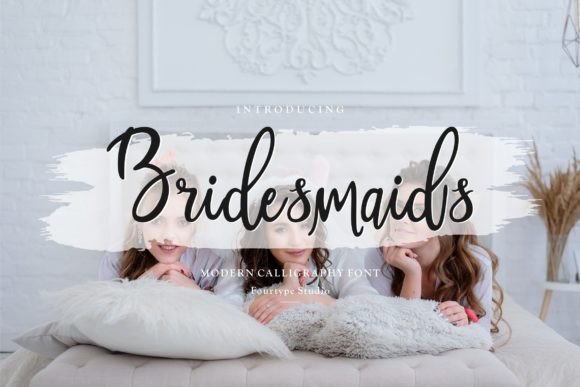
The Bridesmaids Font: A Timeless Beauty for Your Creative Projects
I’ll never forget the moment I stumbled upon the Bridesmaids font while working on a wedding invitation project for a client. I had been searching for the perfect handwritten font for hours, but nothing seemed quite right. That was until I saw Bridesmaids – an exquisite, elegant script that instantly captured my heart. In this article, I’ll share my experience with this beautiful font, its features, and how to make the most of it in your designs.
An Honest Review of Bridesmaids Font
• ✨ Exquisite Handwritten Style: Bridesmaids boasts a classy, calligraphic influence that feels both sophisticated and fresh.
• ✅ Contemporary yet Timeless: This font strikes the perfect balance between modern flair and classic elegance, making it versatile for various projects.
• 💫 Emotional Connection: The flowing script and delicate strokes evoke a sense of romance and whimsy, perfect for wedding-related designs or projects that require a personal touch.
While Bridesmaids is an exceptional font, there are a few things to keep in mind:
• ⚠️ Legibility at Small Sizes: Like many script fonts, Bridesmaids may lose legibility when used at very small sizes. It’s best used at larger sizes (from 20px and above) to showcase its beauty.
• 🤔 Pairing with Other Fonts: Due to its distinctive style, Bridesmaids can be a bit challenging to pair with other fonts. Stick to simple, clean fonts to create a harmonious contrast.
The Story Behind Bridesmaids Font
Bridesmaids was designed with love and care by a talented typographer who sought to create a font that captures the essence of romance and elegance. Inspired by traditional calligraphy, this font blends classic beauty with a modern twist. The result is a stunning script that’s perfect for wedding invitations, branding, and any project that requires a touch of sophistication.
Q: What makes Bridesmaids font unique?
A: Bridesmaids stands out for its exquisite handwritten style, blending classic calligraphic influences with a contemporary feel.
Q: Is Bridesmaids suitable for body text?
A: While beautiful, Bridesmaids is best used for headings or short paragraphs due to its script nature and potential legibility issues at smaller sizes.